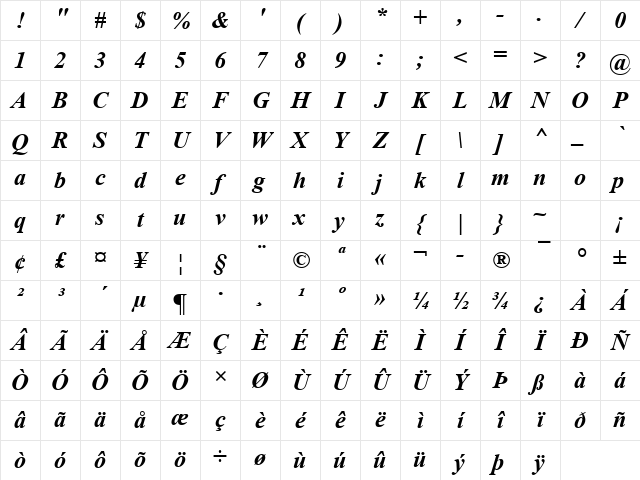
Complete font237 Bold Italic glyph index. Displaying only characters natively supported by font237 Bold Italic font.
font237 is a composed and adaptable typeface that performs quietly and consistently across a wide range of design contexts. The slanted form adds forward momentum and visual energy. Its bold stroke weight gives it real presence on the page.
Pro Tip: Use font237 for emphasis, pull quotes, and subheadings where its slanted energy can add rhythm to the layout.